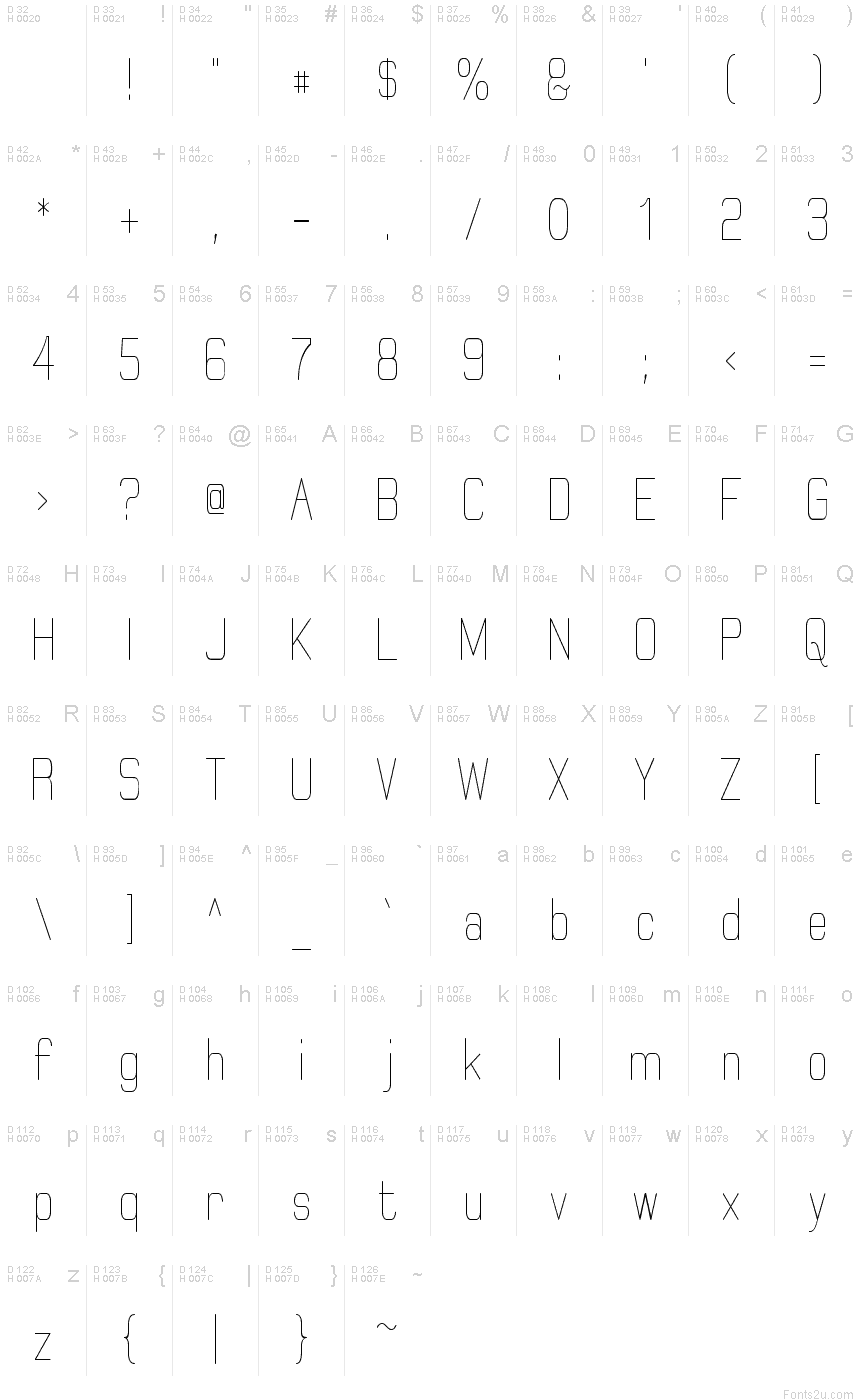
Elgethy Condensed by Graham Meade is a free condensed monoline sans serif with an exceptionally slim, architectural build. Hairline strokes, upright proportions, and softly rounded curves give the letters a clean technical appearance.
As a precise linear accent, it can turn poster headings and exhibition signage into elements that resemble drafting marks or a modern wayfinding system. Its restrained geometry also suits fashion branding and minimalist packaging, where the narrow lettering can become a recognizable product signature rather than ordinary label text.